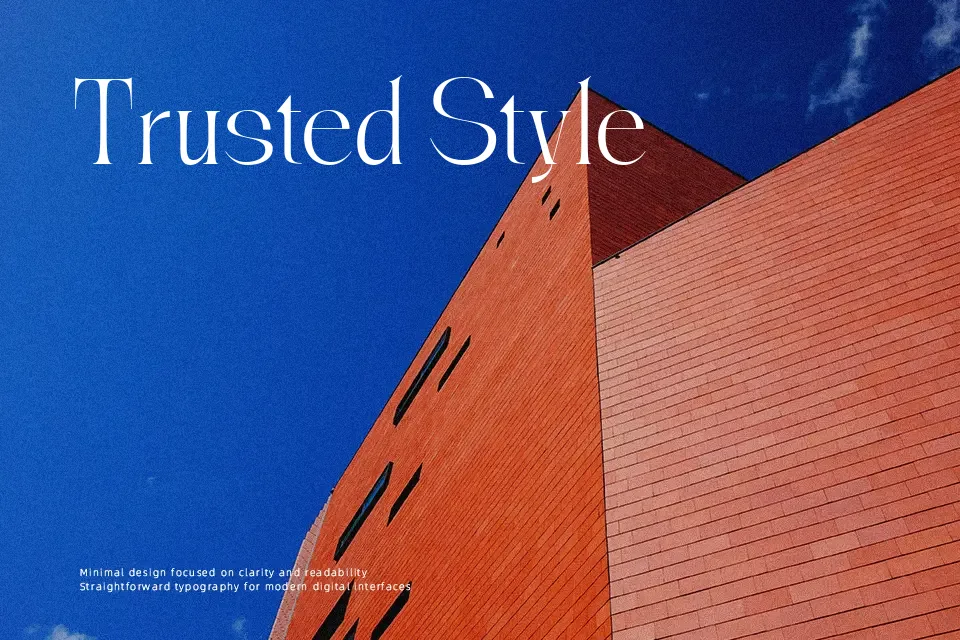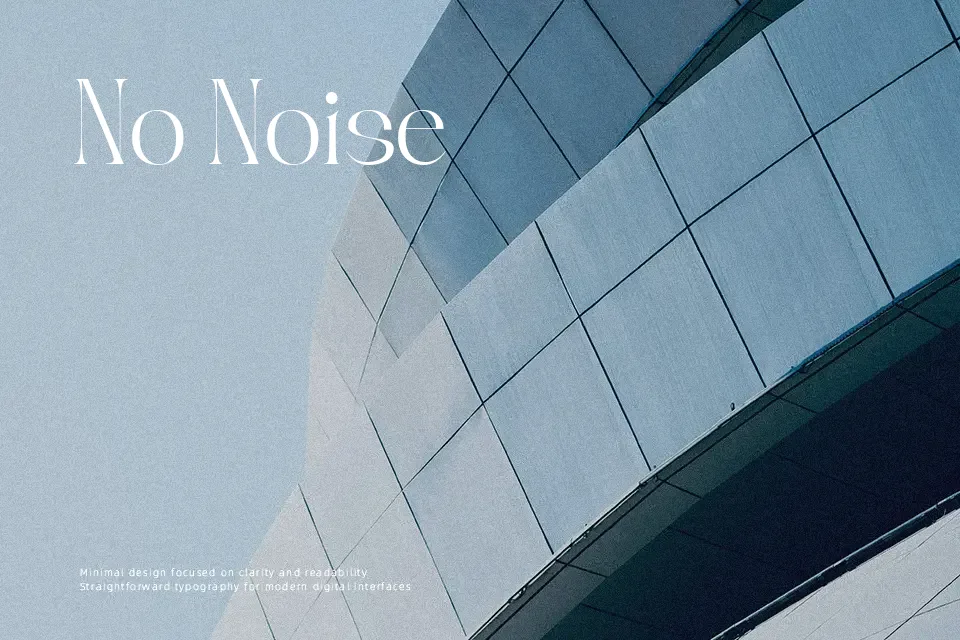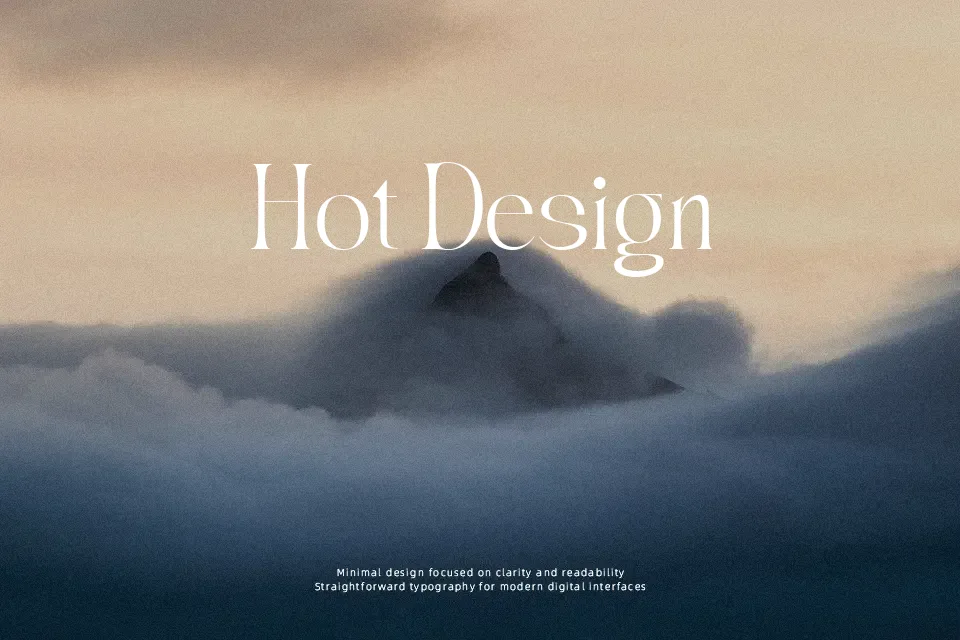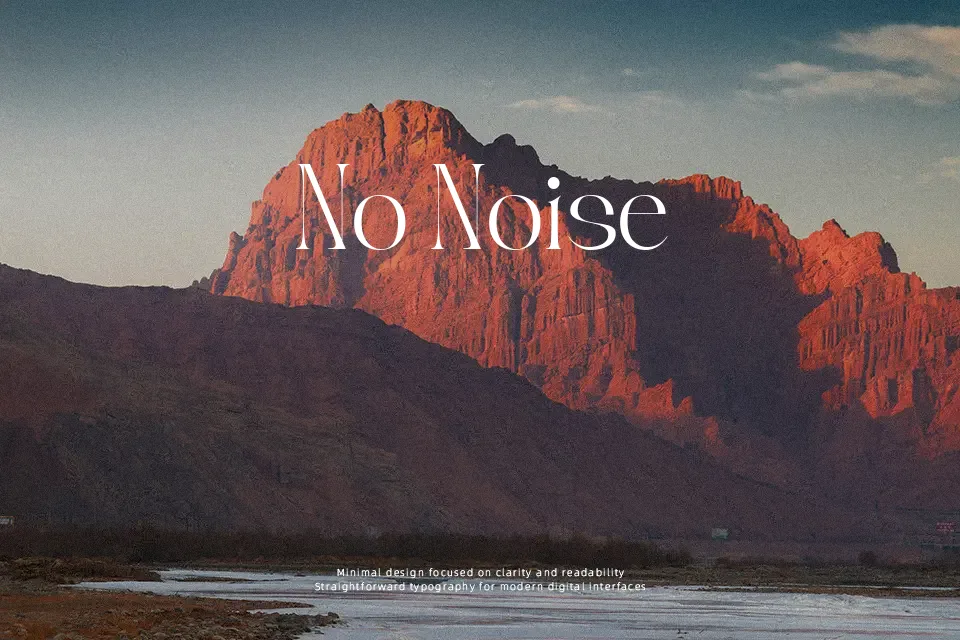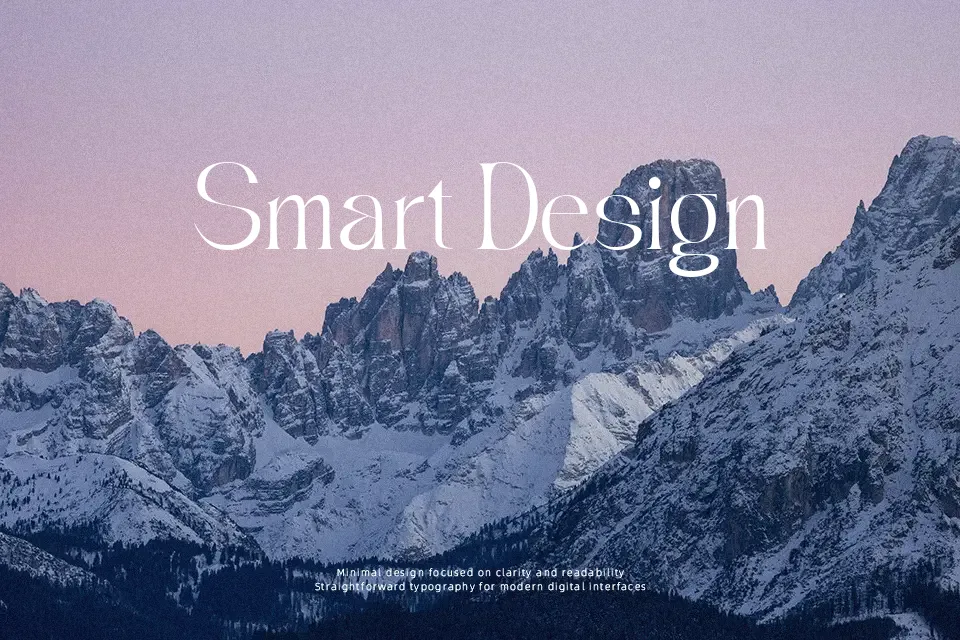
Barox Font
Barox carries the composed weight of a high-contrast serif — its letterforms lean into structured elegance with deliberate stroke variation and tight, balanced kerning. The overall impression sits somewhere between a fashion editorial typeface and a luxury branding serif: unhurried, formal, and visually authoritative. It reads well as a standalone headline or logo lockup, where each character gets room to breathe. For packaging headers, brand identity systems, or high-end invitation titles, it does its job cleanly. That said, the demo version lacks full character support, which becomes a real obstacle once multilingual or punctuation-heavy text is involved. Designers who need it for paid client work should factor in the cost of the commercial license upfront.
Best For:- Luxury brand logo headers
– Fashion or lifestyle editorial titles
– High-end product packaging display text
– Formal event invitation headlines
Not Ideal For:- Body text or long-form reading
– Budget or informal branding projects
– Corporate report documents
Perfect for branding, editorial, and fashion, with a classic and display style.